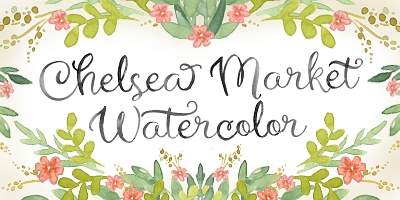
Chelsea Market Watercolor Font Free Download is a beautiful and artistic handwritten font with a watercolor effect, adding a fluid and organic touch to your designs. With its charming, brush-like strokes and soft, flowing edges, this font is perfect for creating personalized, artistic designs like wedding invitations, posters, greeting cards, and branding projects that need a creative, hand-painted aesthetic.
Its watercolor-inspired texture and elegant letterforms bring a unique artistic quality to both digital and print work. Chelsea Market Watercolor Font is compatible with design tools like Adobe Illustrator, Photoshop, Canva, and Procreate, making it easy to incorporate into your creative projects.